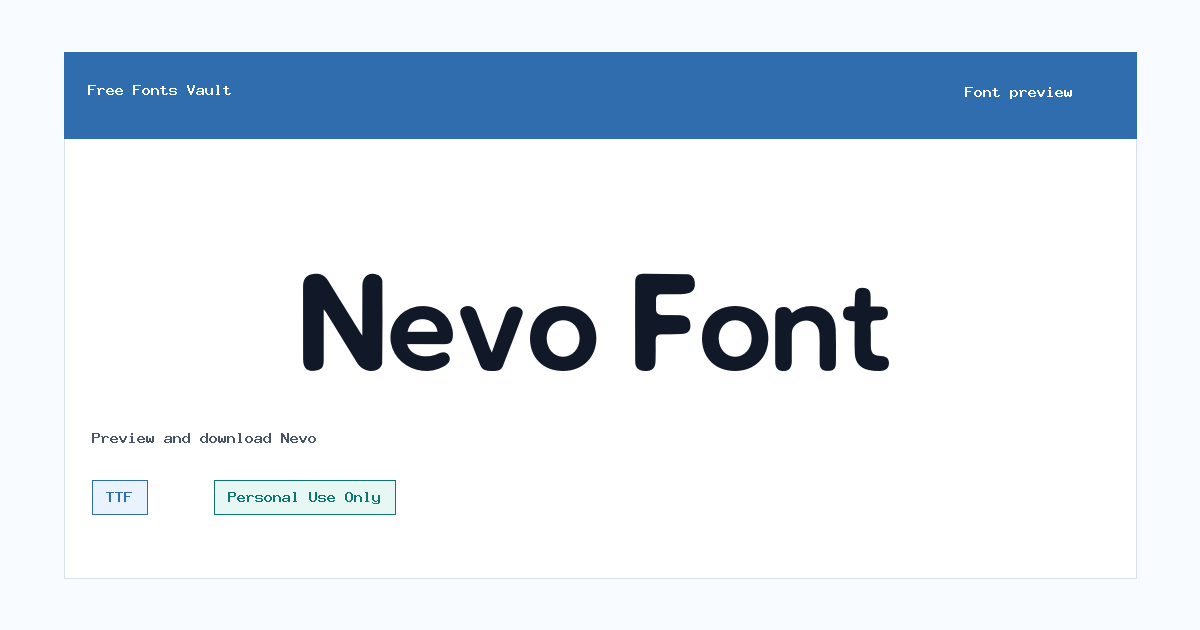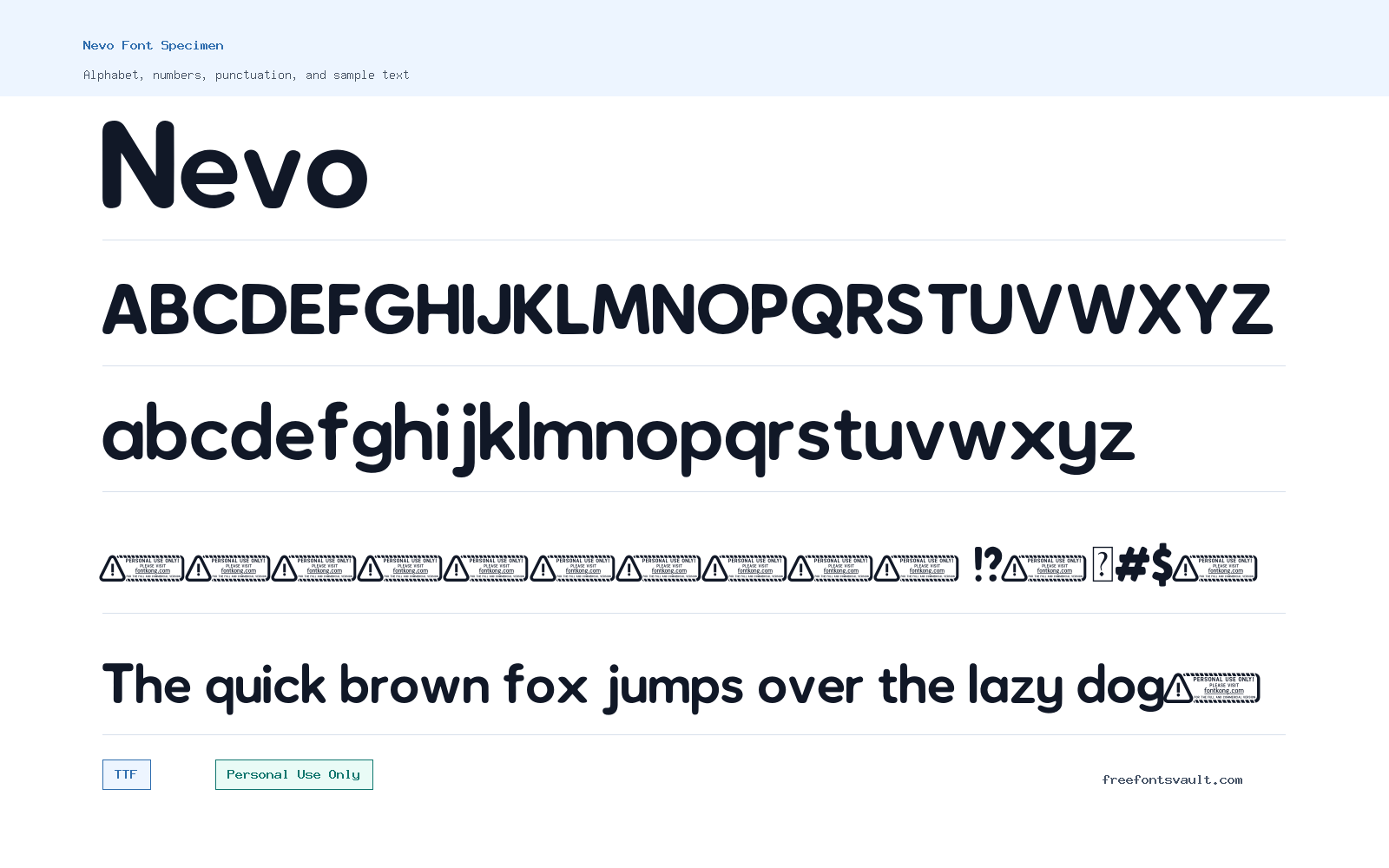
Nevo
Nevo is a bold, rounded display font from Kong Font, offered in a regular TTF style for personal-use projects. Its soft sans-serif shapes make it useful when you want a friendly logo draft, a simple poster headline, or a playful title treatment without sharp edges or a formal tone.
About Nevo Font
Nevo has a clean display look with thick strokes, rounded corners, and open letter shapes. In preview text, the uppercase letters feel sturdy and compact, while the lowercase letters keep the same soft, approachable rhythm. This makes the font better suited to short words, names, headings, badges, and logo-style experiments than to long paragraphs. It has enough weight to stand out in a title, but the rounded construction keeps it from feeling harsh. If you are testing it for branding ideas, try the exact business name or product name rather than judging it from a generic alphabet sample, because rounded display fonts can change character quickly depending on the word shape.
Use Nevo when the design needs a friendly, simple headline rather than a serious editorial voice. It can work for personal posters, hobby graphics, social images, children-focused mockups, packaging concepts, web hero drafts, and logo sketches. Keep spacing in mind: the bold rounded forms can feel tight at small sizes, so increase tracking slightly for all-caps words and give the text enough room around it. For web mockups, use Nevo as an image headline or prototype font unless you have the correct webfont rights and license terms. For body copy, pair it with a plain sans-serif that stays quiet, such as a neutral grotesk or humanist sans, so Nevo remains the main visual accent.
- Bold rounded sans-serif display style with a friendly logo-focused feel
- Works best in short text, names, labels, badges, and poster headlines
- Readable at larger sizes when spacing and contrast are handled carefully
- Personal logo concepts and name marks
- Poster titles, event headers, and social media graphics
- Playful web mockup hero text
- Stickers, badges, labels, and short display phrases
- Mood boards and brand direction tests before commissioning or licensing final type
What kind of font is Nevo?
Nevo is a bold rounded display font with a logo-style feel. It is best for short headings, names, badges, posters, and personal design experiments.
Is Nevo good for body text?
It is better as a display font. Use it for short words and headlines, then pair it with a simpler sans-serif for paragraphs and smaller text.